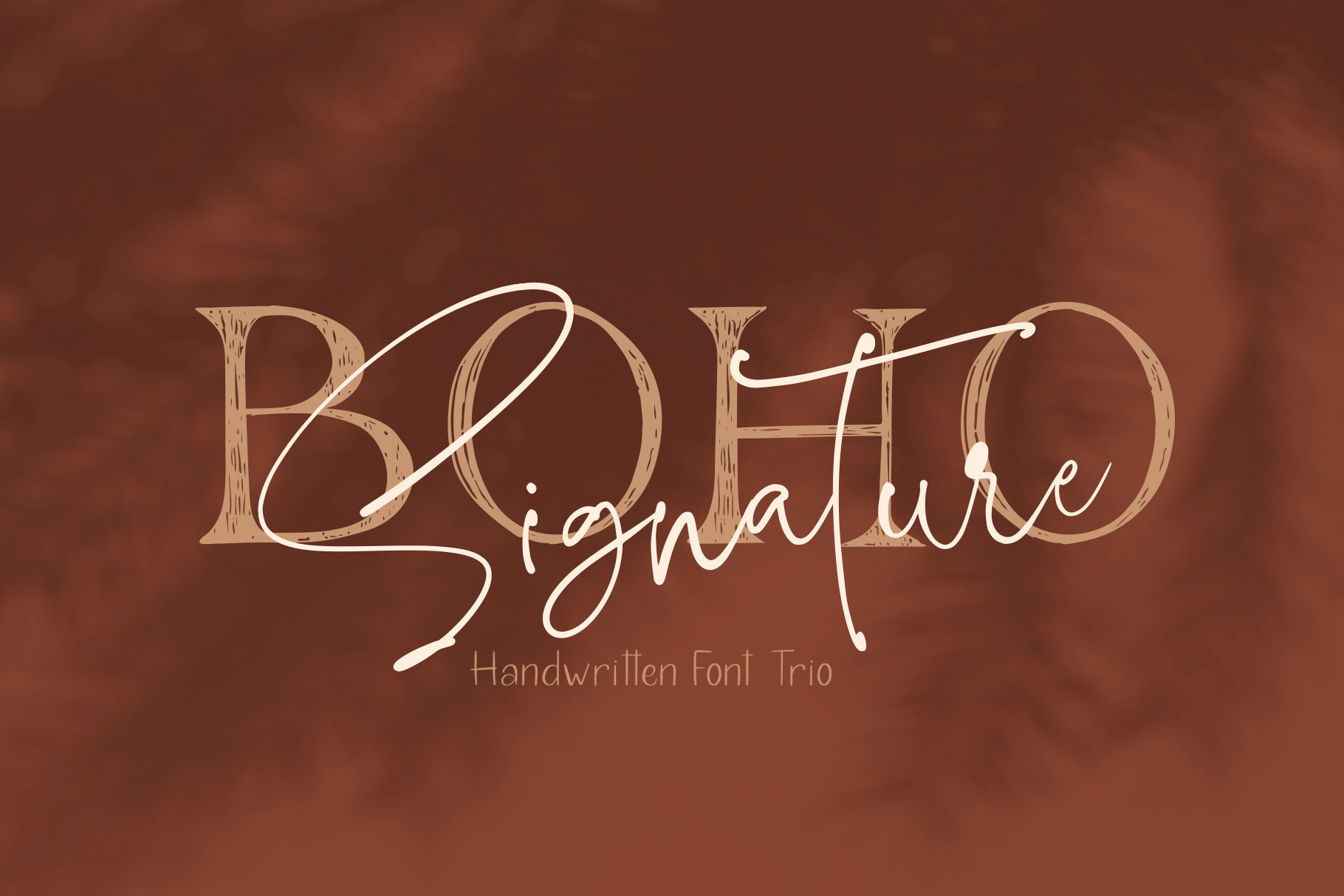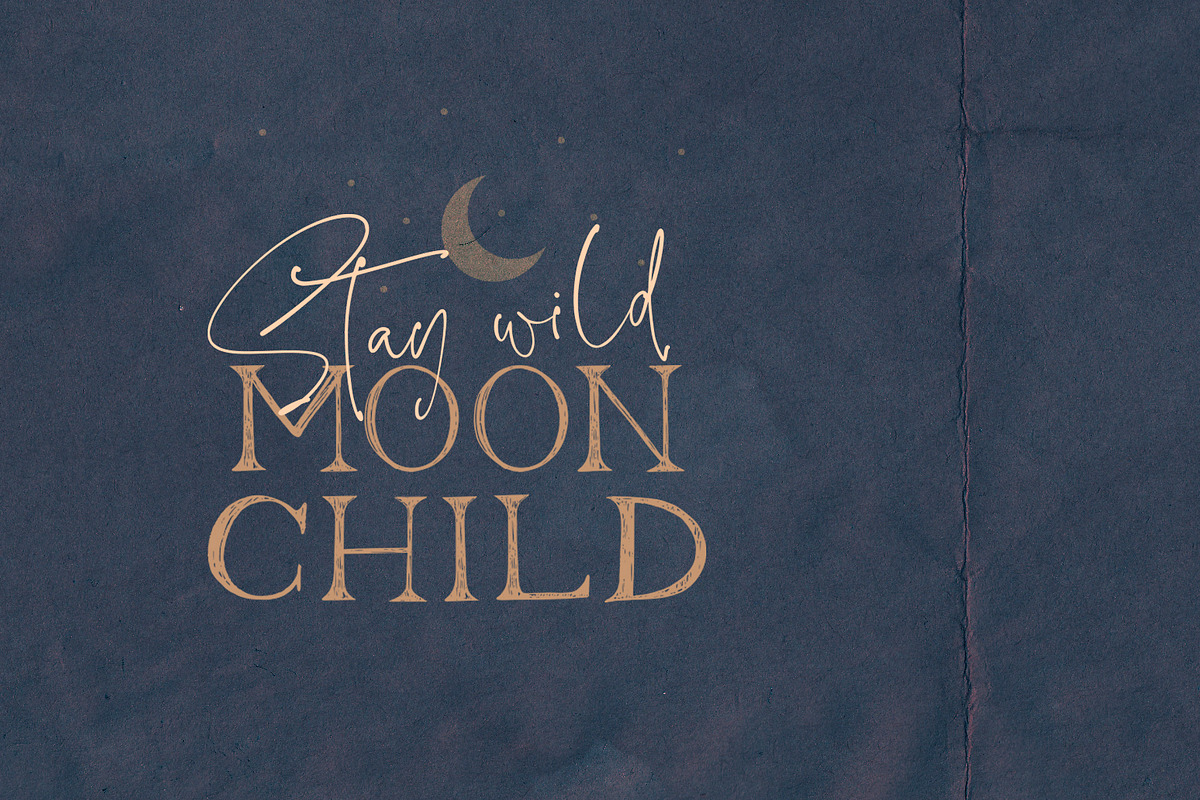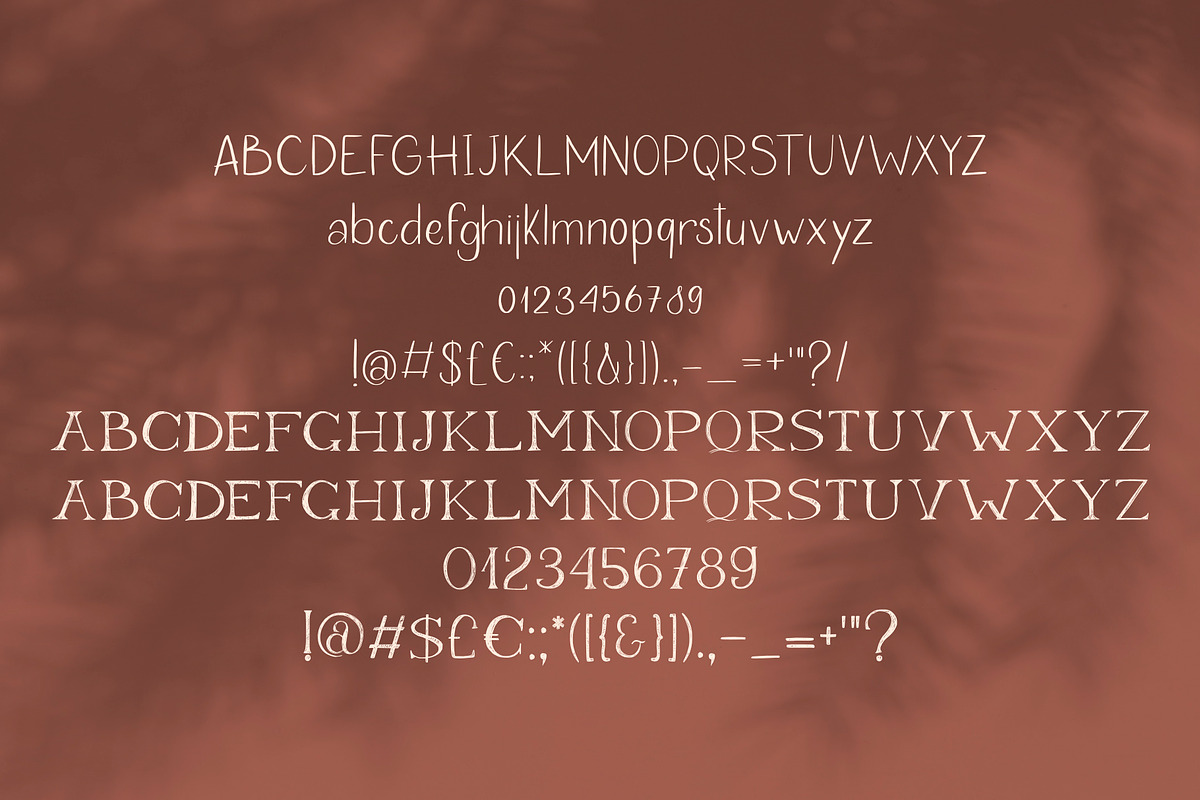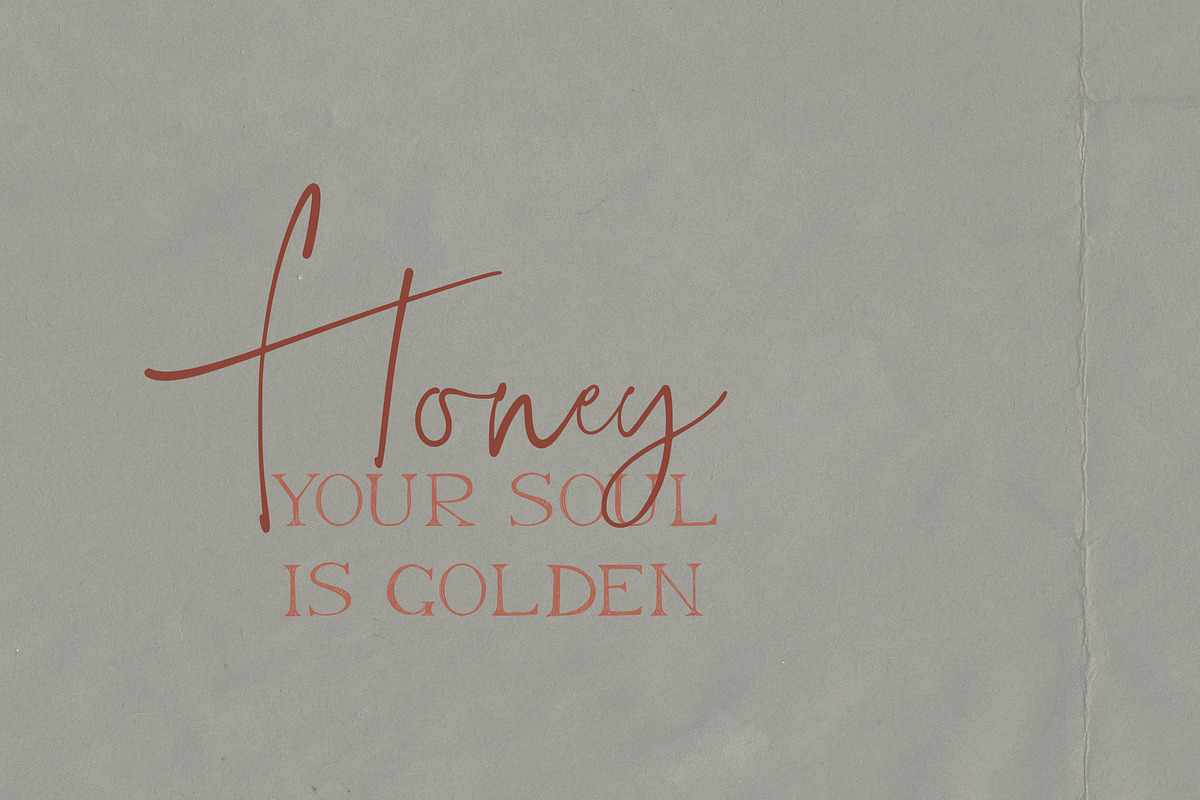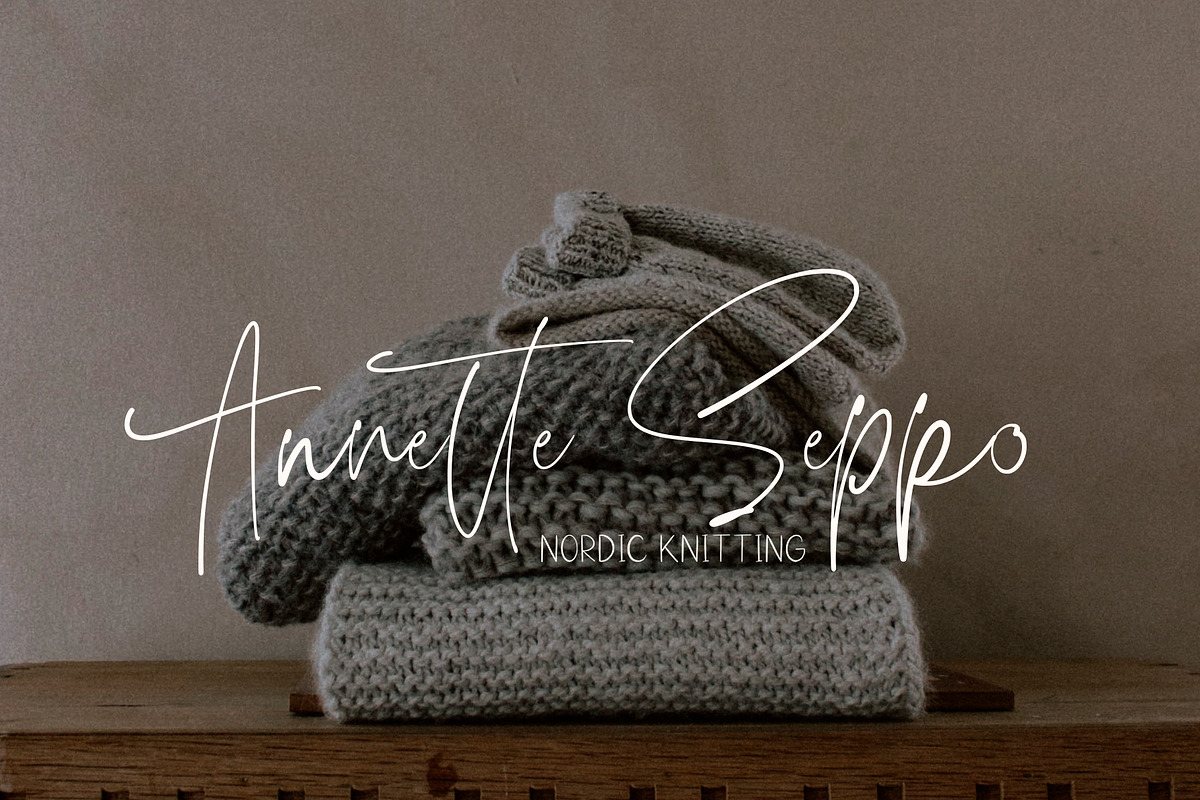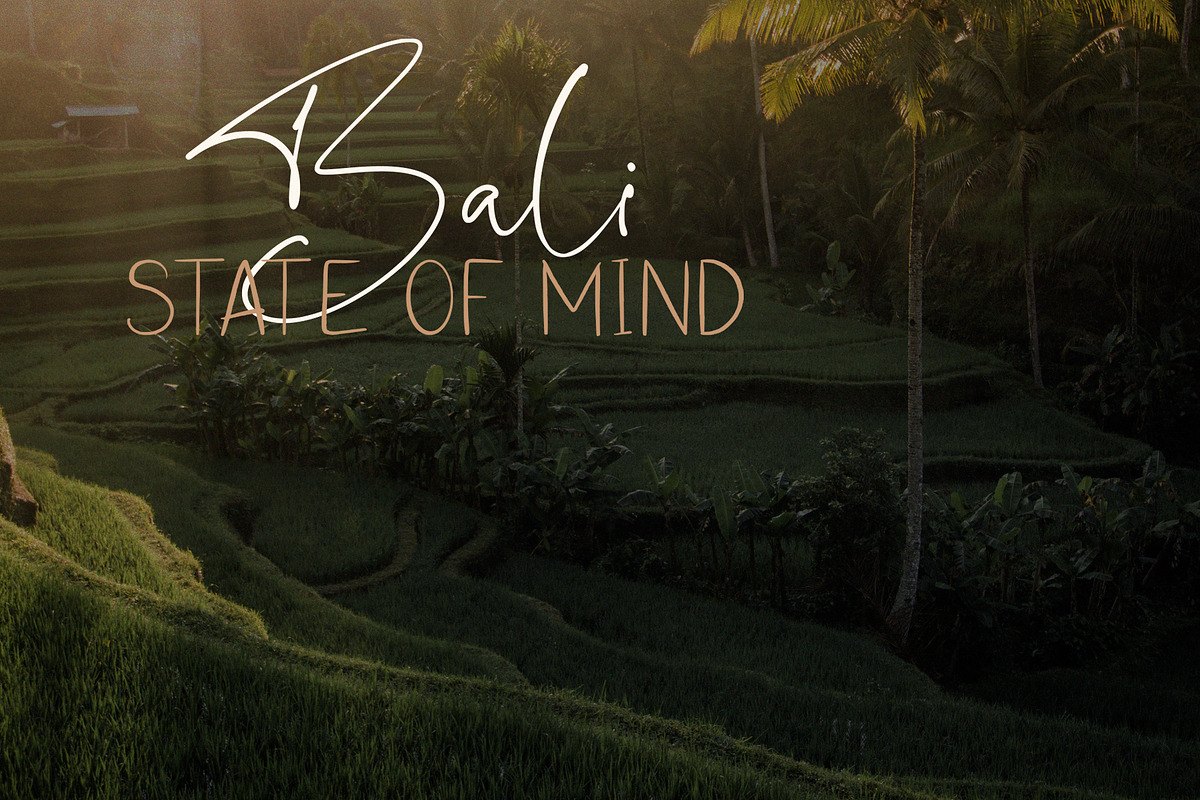
Boho Signature Handwritten Font Trio
Boho Signature Handwritten Font Trio - it's a modern textured font trio
Boho Signature Script.otf - standart and alternate uppercase, lowercase, numbers, punctuation and ligatures
Boho Signature Thin.otf - standart uppercase, lowercase, numbers, punctuation
Boho Signature Serif.otf - all caps font.